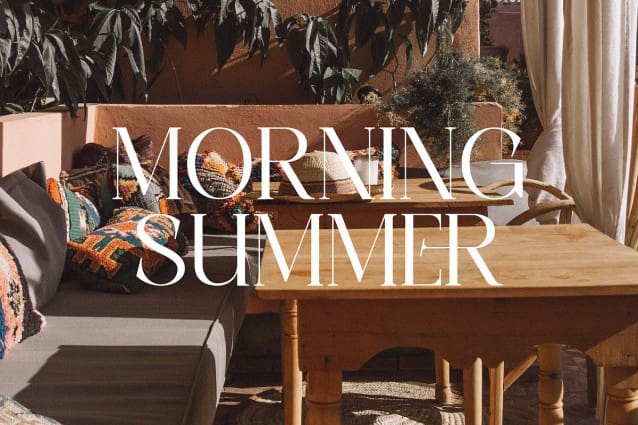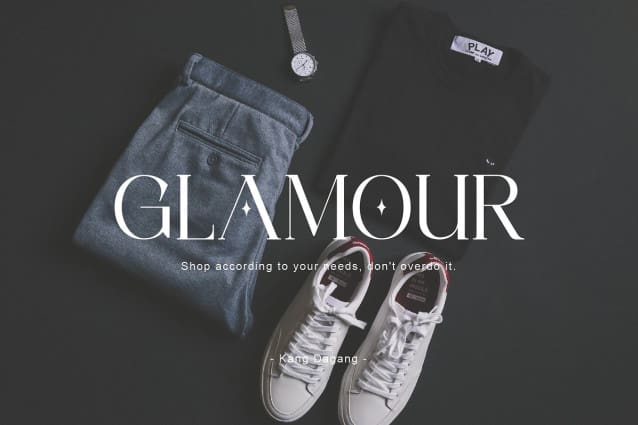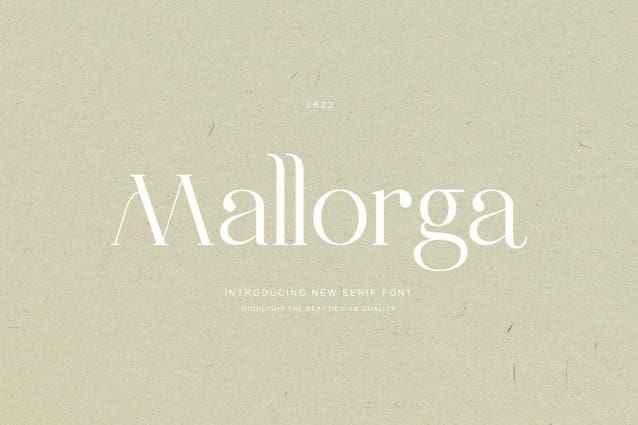
Mallorga Font
Mallorga Font is a serif typeface. It has an elegant and modern character by adjusting design developments. Mallorga is made to complete your best work. You can use this font to create wedding invitations, logos, advertisements, web, covers, clothing, banners and more.